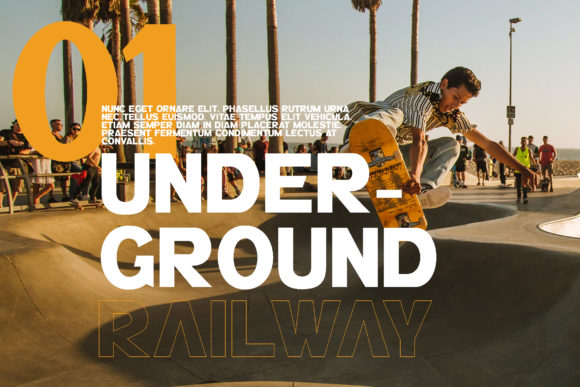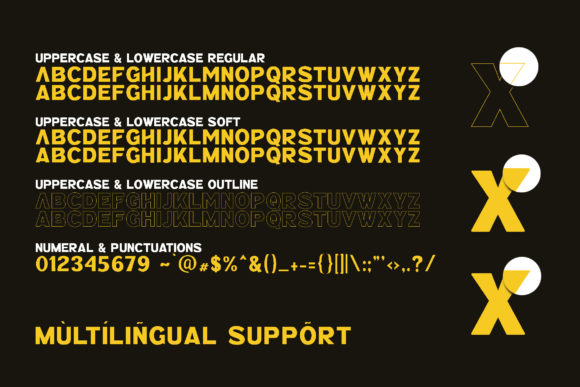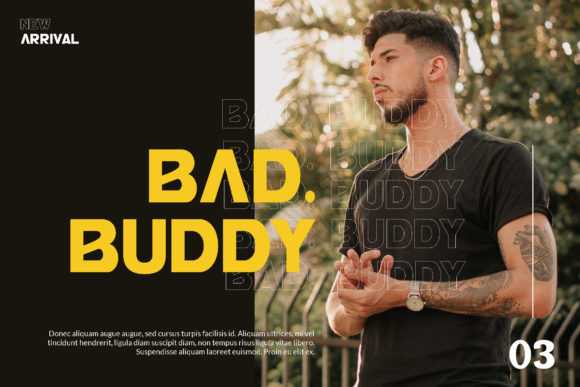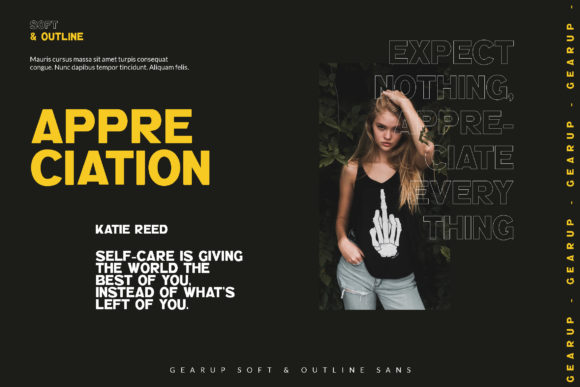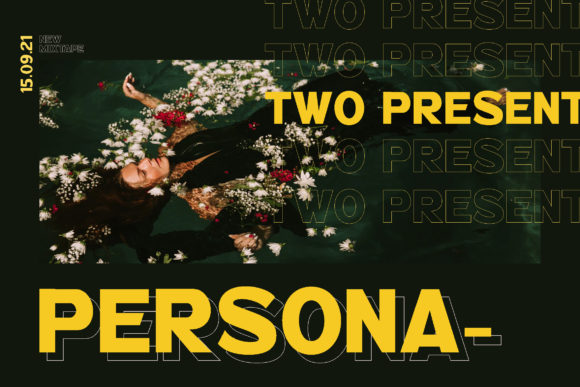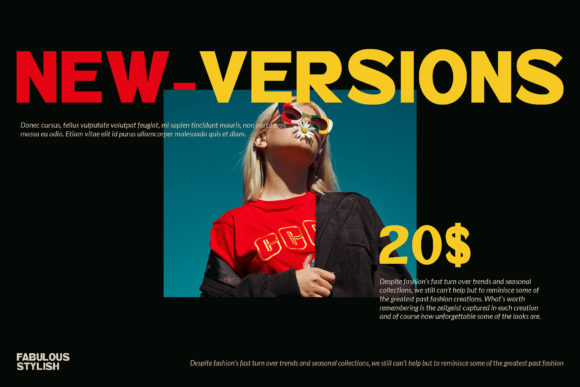
Introduction to Gear Up Sporty Font
Have you ever been stuck on a creative project, desperately searching for the perfect font to bring your vision to life? You know, that moment when you see a design and think, “If only I had a font like that, my project would be complete!” For designers, finding the right font can be a game-changer. And that’s exactly what we’re excited to introduce you to – the Gear Up Sporty Font, a bold and thick lettered display font that’s sure to elevate your designs to the next level.
As a valuable design resource, Gear Up Sporty Font is perfect for a wide range of applications, from t-shirts and sportswear to logos and advertisements. Its high-quality design makes it ideal for use on a transparent background, giving your designs a clean and modern look. And the best part? You can download it for free, making it an accessible addition to any creative project.
Key Features of Gear Up Sporty Font
- High-quality font design for creative projects, suitable for a variety of design resources.
- Includes a transparent background, making it easy to use with any design element.
- Comes in a single weight, ideal for titles, headings, and other display typography.
- Designed with a modern, sporty aesthetic, perfect for fitness, wellness, and lifestyle brands.
Honest Review: Gear Up Sporty Font
I recently had the chance to dive into the Gear Up Sporty Font, a highly-rated design resource that promises to elevate any creative project. Overall, I’m impressed with what I’ve seen.
- High-quality design: The font is sleek and modern, making it perfect for sports-related projects or any design where a fun, energetic vibe is needed.
- Transparent background: The transparent background option is a great touch, allowing for seamless integration with any design element.
- Limited font styles: The font only comes in a few styles, which may limit its versatility for more complex designs.
- No bold/italic options: The lack of bold and italic options may make it difficult to use in certain situations.
Overall, I’m impressed with the Gear Up Sporty Font and would recommend it for any design project where a fun, energetic vibe is needed. While it has some limitations, its high-quality design and free download make it a great addition to any design resource collection.
Gear Up Sporty Font is a high-quality font ideal for various creative projects, such as sports-themed posters, merchandise, or event promotions. The font features a transparent background, making it easy to use with any design element.
Getting the Most Out of Gear Up Sporty Font
To get the most out of Gear Up Sporty Font, experiment with different font sizes, colors, and styles to match your design project’s theme and tone.
Common Use Cases for Gear Up Sporty Font
Gear Up Sporty Font is ideal for sports-themed designs, such as:
- Sports event promotions
- Merchandise designs (t-shirts, hats, etc.)
- Website designs
What is the recommended size for using the Gear Up Sporty Font in a design project?
The recommended size for using the Gear Up Sporty Font depends on the specific design project. However, as a general guideline, we recommend using font sizes between 12pt and 48pt for optimal legibility. This ensures that the font remains clear and readable, even in high-resolution designs.